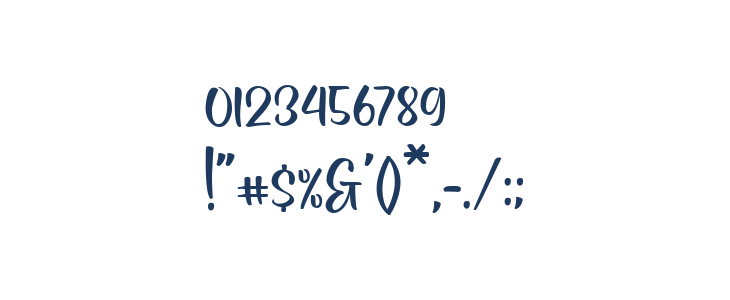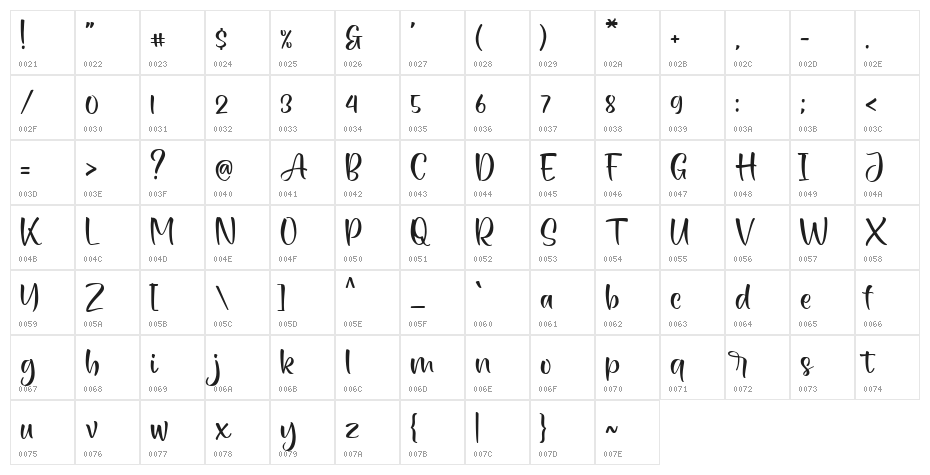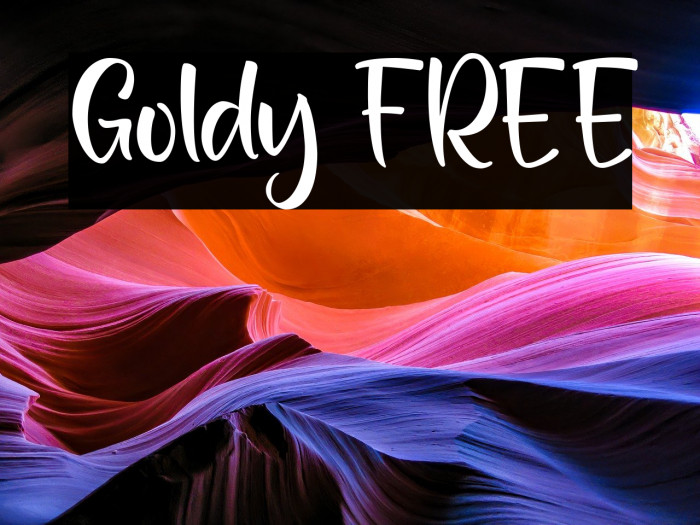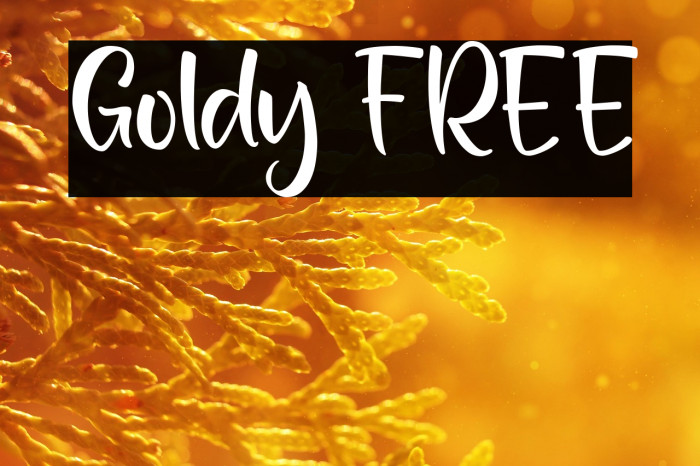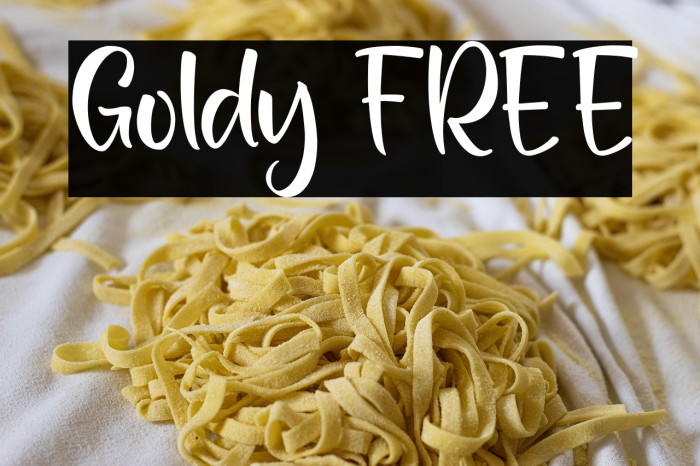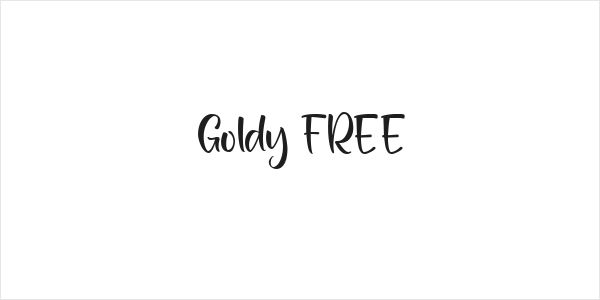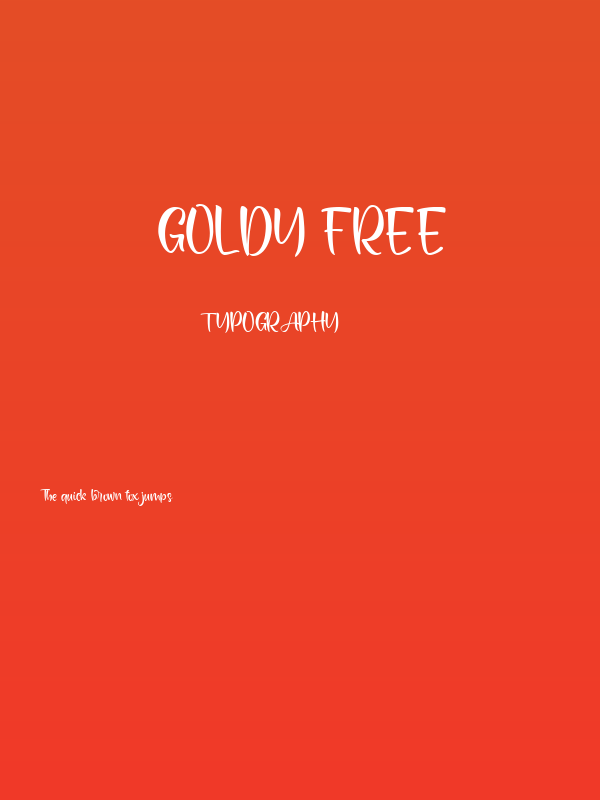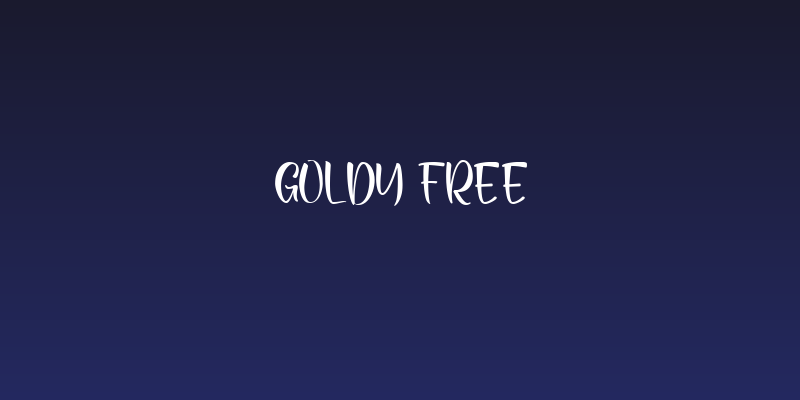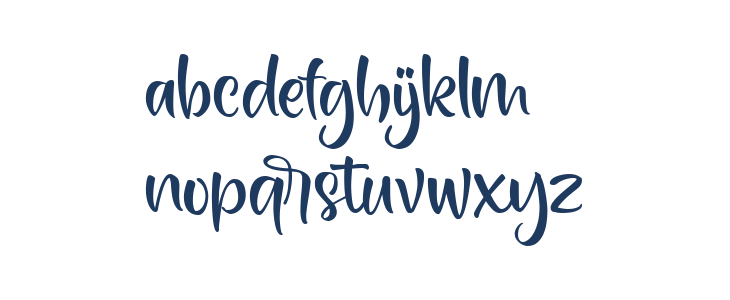
Goldy FREE Font
Goldy FREE Description
This font features a lively and expressive script style, characterized by its flowing, cursive letterforms. The uppercase letters are bold and dynamic, with a playful yet elegant flair, while the lowercase letters maintain a consistent rhythm with smooth, rounded curves. The numerals are equally expressive, maintaining the font's overall energetic style. Special characters are designed with the same attention to detail, ensuring a cohesive look across all glyphs. The font's brush-like strokes give it a handcrafted feel, making it suitable for projects that require a personal touch.